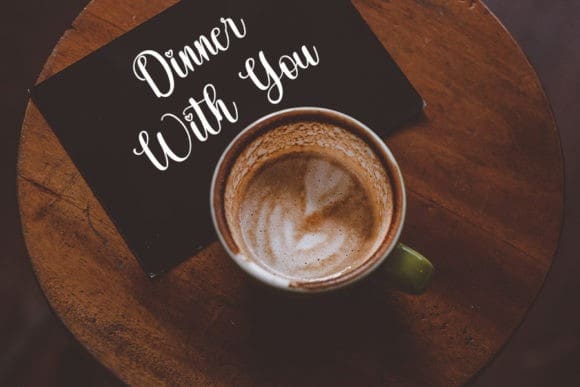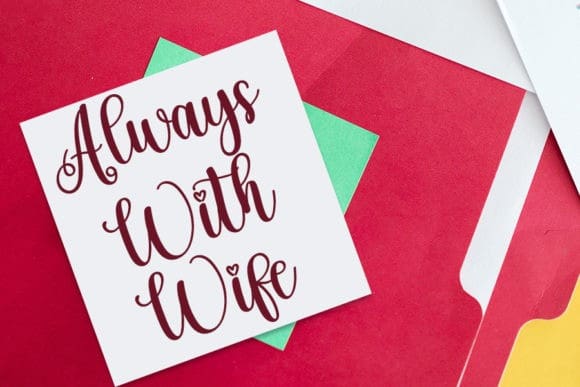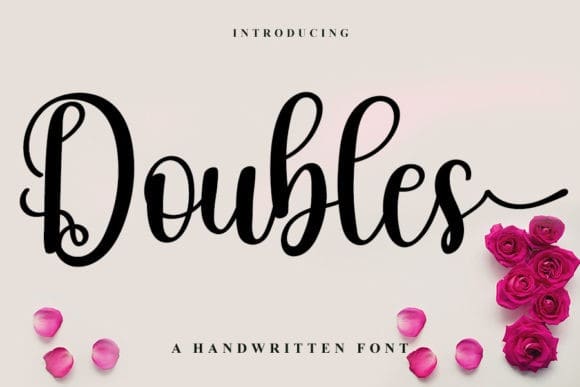
Doubles Script Font
Doubles Script Font is a stylish handwritten font with a contemporary atmosphere and impeccable form, inspired by a timeless classic calligraphy. Not too thin and not too thick, balanced and varied, this font was designed to enhance the beauty of your projects.